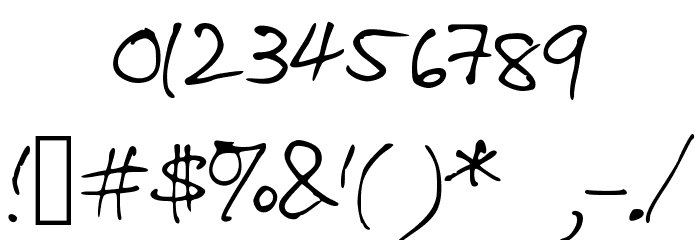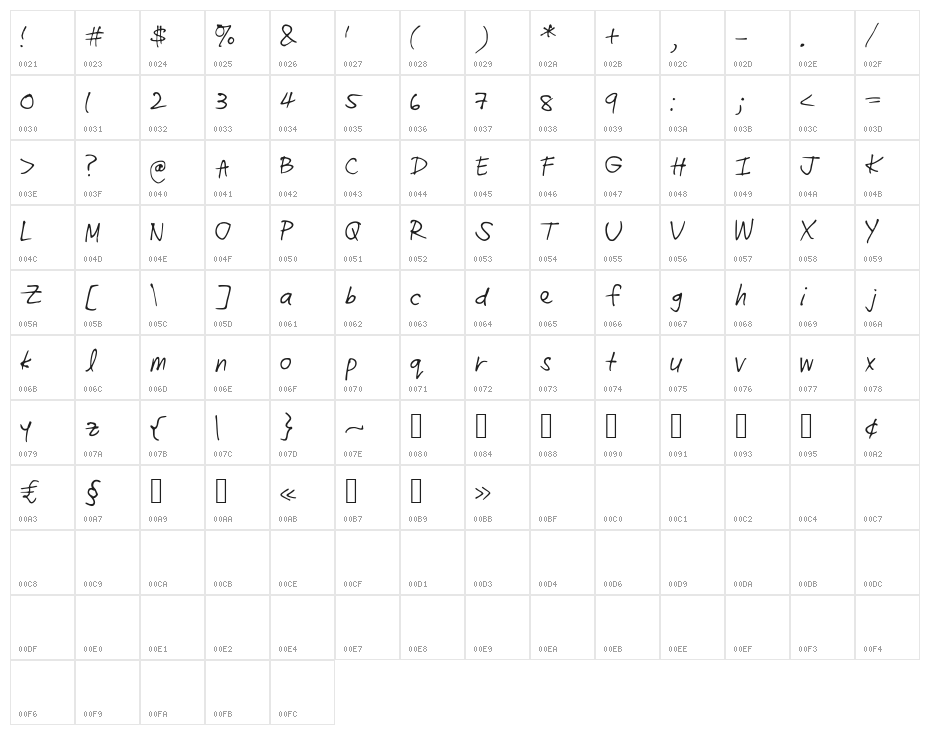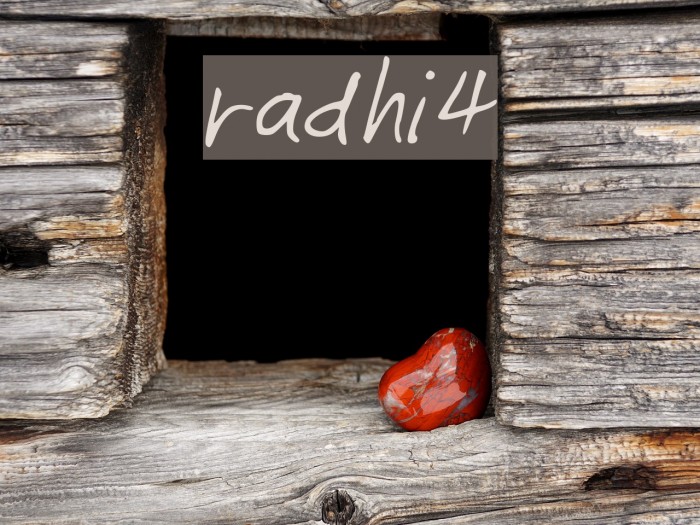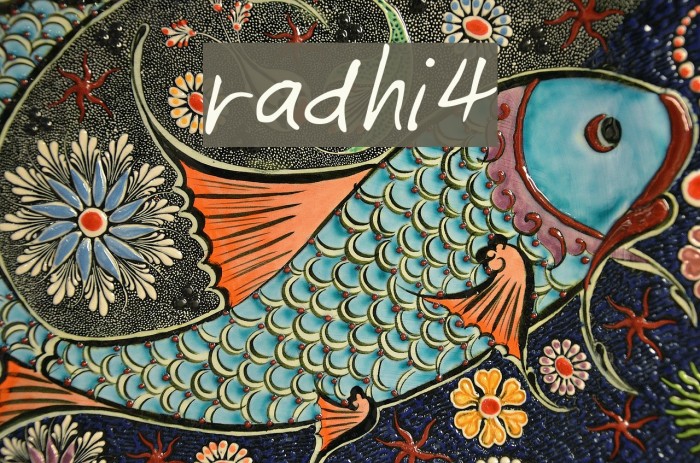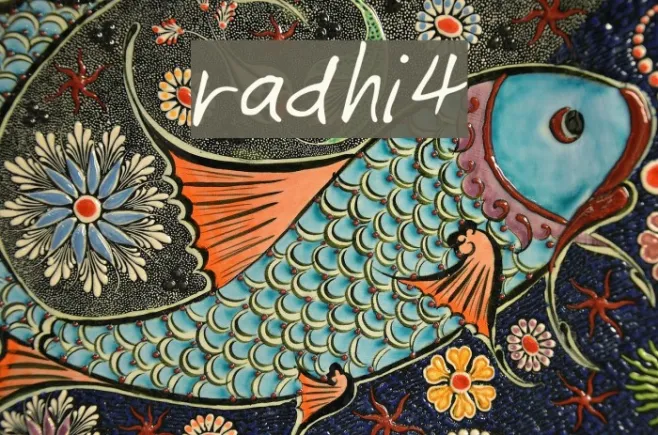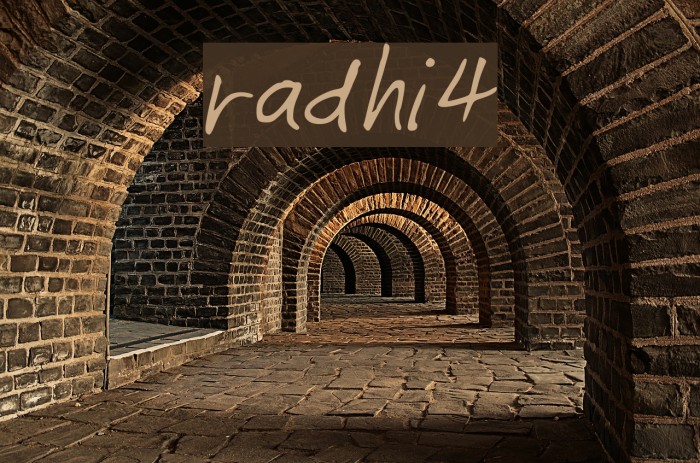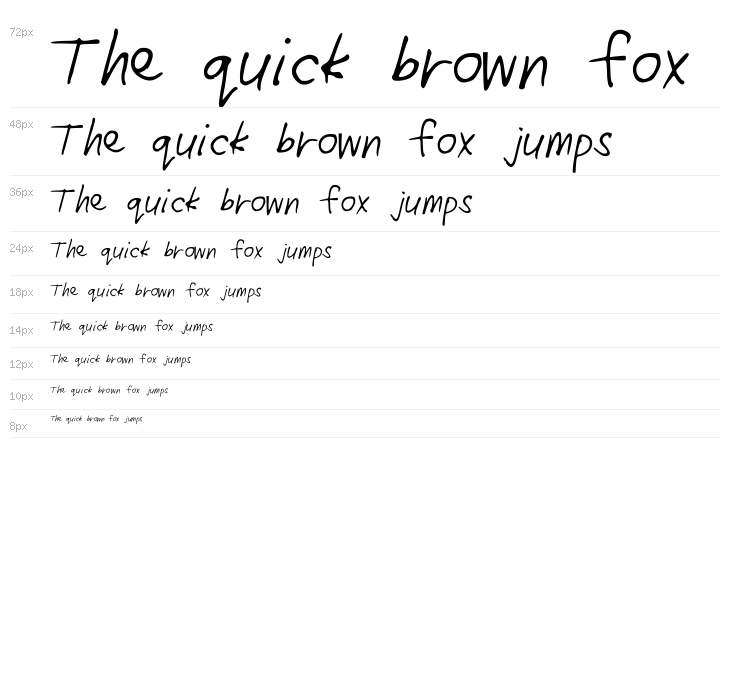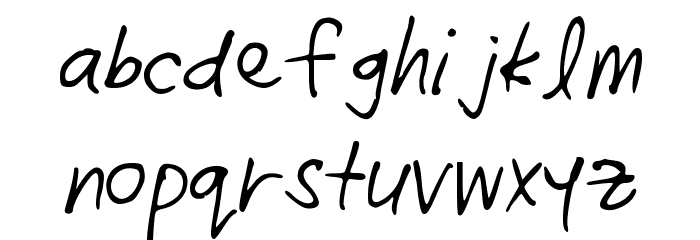
radhi4 Font
radhi4 Description
This font features a casual, handwritten style with a playful and informal appearance. The characters are slightly slanted, giving a dynamic and lively feel. The strokes are uneven, mimicking the natural flow of handwriting, which adds a personal touch. The uppercase letters are bold and prominent, while the lowercase letters maintain a consistent flow. The numbers are clear and legible, matching the overall style. Special characters are included, maintaining the same playful aesthetic. This font is ideal for projects that require a personal, approachable, and friendly look.
| Use Case | Headlines, Logos, Informal text |
| Proposed Projects | Greeting cards, personal blogs, informal invitations, children's books, and creative branding. |